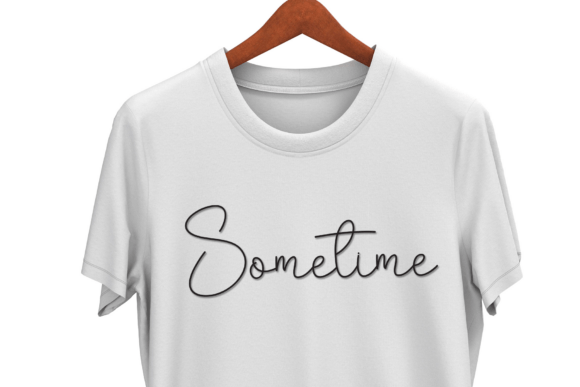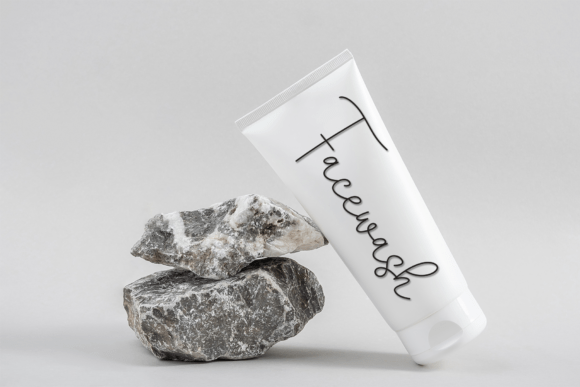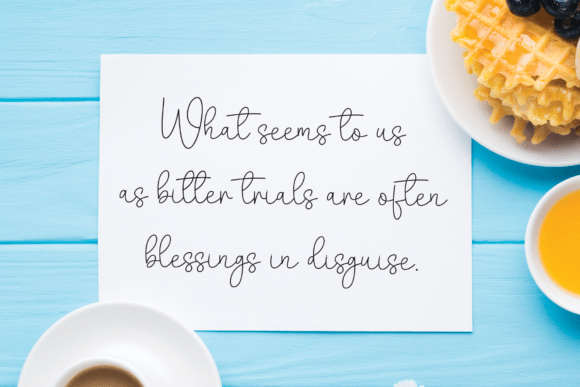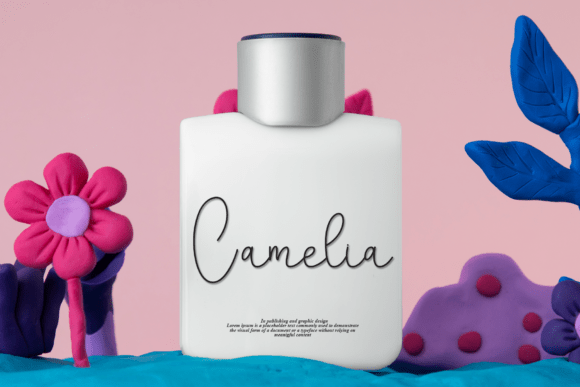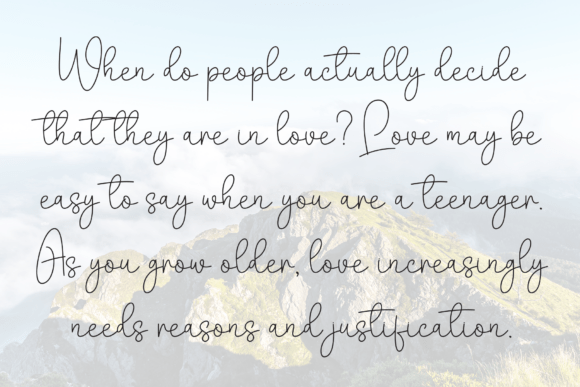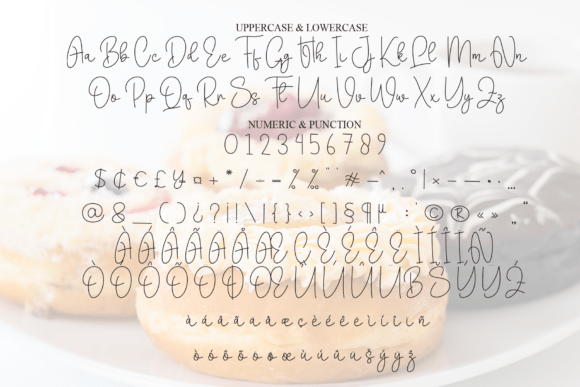
The Perfect Recipe for Design: Introducing Bakery Font
Who hasn’t spent hours in the kitchen, whipping up a batch of sweet treats, only to take a step back and admire the beautifully presented tray of goodies? That moment of satisfaction is exactly what inspired the creation of Bakery Font – a light, airy script font designed to evoke the same feeling of warmth and love that comes with baking.
Bakery Font is a must-have for any designer looking to add a touch of elegance and sophistication to their work. With its clean and minimalist lines, it’s perfect for creating beautiful bakery logos, packaging, and recipe cards that exude a soft, homemade feel. Whether you’re a seasoned pro or just starting out, Bakery Font is a valuable addition to any designer’s toolkit.
Bakery Font Key Features
- Size: The font family includes multiple weights, ranging from Thin to Extra Bold, allowing designers to achieve a wide range of visual effects.
- Resolution: Bakery Font is designed to be scalable and legible at various resolutions, making it suitable for both digital and print applications.
- Unique Characteristics: The font features a distinctive, hand-drawn aesthetic with subtle imperfections, giving it a warm and inviting feel.
- Language Support: Bakery Font includes comprehensive language support, covering Latin-based languages as well as Cyrillic and Greek scripts.
- kerning and Ligatures: The font includes advanced kerning and ligature pairs, ensuring smooth and professional-looking text layouts.
Bakery Font Review
Overall, Bakery Font is a solid choice for designers looking for a modern, bakery-themed font. Here’s what I like and dislike about it.
- Unique design: Bakery Font has a distinctive, hand-drawn feel that’s perfect for bakery or food-related businesses.
- Easy to read: The font is clear and legible, even at smaller sizes, making it suitable for a variety of applications.
- High-quality: The font is well-crafted and seems to be designed with attention to detail.
- Limited versatility: While the font is great for bakery or food-related businesses, it may not be suitable for other industries or applications.
- No comprehensive character set: The font may not include all the characters you need, such as accented letters or punctuation.
- Limited font weights: The font only comes in a few weights, which may limit your design options.
Bakery Font is a great choice for designers who need a modern, bakery-themed font. While it may have some limitations, it’s a solid option that’s easy to use and looks great. Just be aware of its limitations and consider whether it’s the right fit for your project.
Tips for Getting the Most Out of Bakery Font
For a more authentic bakery look, pair Bakery Font with images of pastries, cakes, or other baked goods.
Experiment with different font sizes and styles to create visual interest and hierarchy in your design.
Bakery Font is ideal for:
- Bakery and cafe branding
- Food blog and recipe design
- Wedding and event invitations